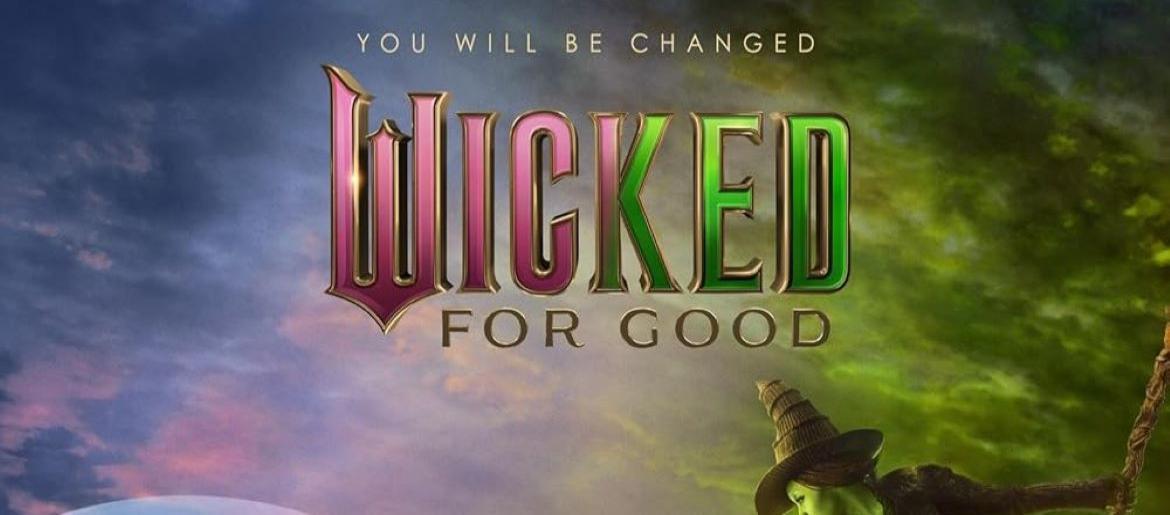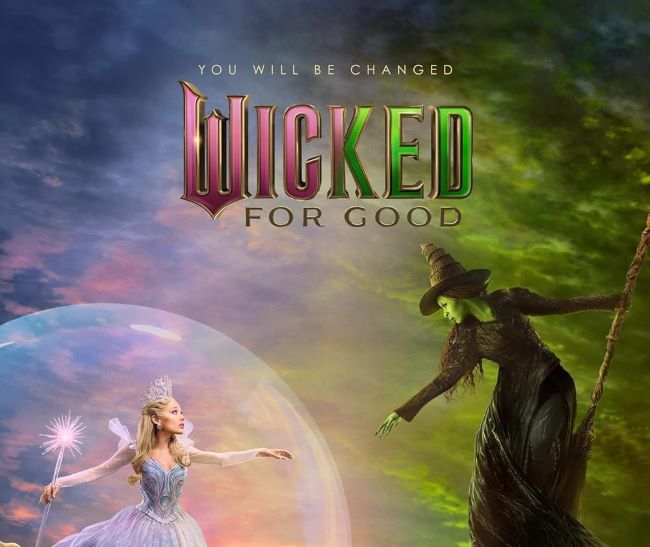
The Wicked font is as bold and theatrical as the Broadway phenomenon itself. Its lettering is sharp, dramatic, and filled with a sense of enchantment—perfectly capturing the magical and mysterious world of Wicked. With tall, striking letterforms and elegant curves, the font reflects the duality at the heart of the story: light versus dark, good versus misunderstood. The font used in the Wicked movie logo closely resembles “Ravenscroft” and “Widow” by FG Studios, a free font for personal use.
Designers often associate the Wicked font with fantasy, drama, and storytelling. It’s instantly recognizable, making it a favorite for fan art, posters, and creative projects that aim to capture a sense of wonder with a slightly gothic edge.
The movie adaptation of Wicked brings the beloved musical to the big screen, telling the untold story of the witches of Oz—long before Dorothy arrived. Just like the font, the film promises spectacle, emotion, and a touch of dark magic that audiences won’t forget.